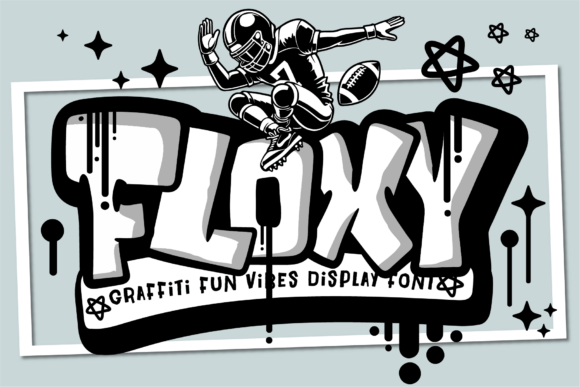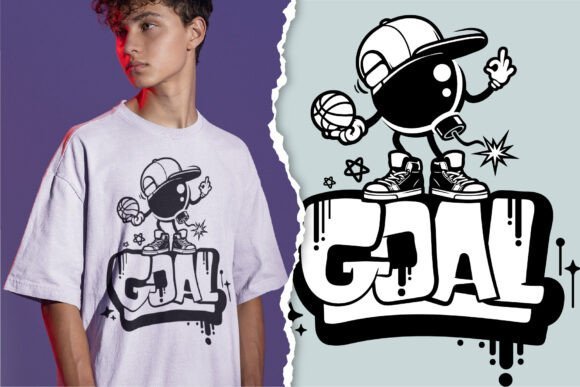
Creating jaw-dropping visuals requires more than just standard typefaces. I’ve put together a list of 26 display graffiti fonts that bridge the gap between fine art and street culture, ensuring your next project leaves a lasting impression.
Top Graffiti Display Fonts to Transform Streetwear and Event Posters
Street art thrives on raw energy, sharp angles, and rebellious expression. Capturing that authentic urban edge within digital layouts requires typefaces that go beyond standard display styles to emulate real spray paint, wildstyle drips, and stencil textures.
This curated roundup showcases 26 aggressive graffiti typefaces featuring heavy letterforms, stylized swashes, and urban character. Whether the focus lies in streetwear branding, music festival flyers, or bold album covers, these letterforms inject immediate street credibility and visual impact directly into any graphic composition.
1. Street Writing: Unleash Your Creative Edge With Bold Urban Lettering
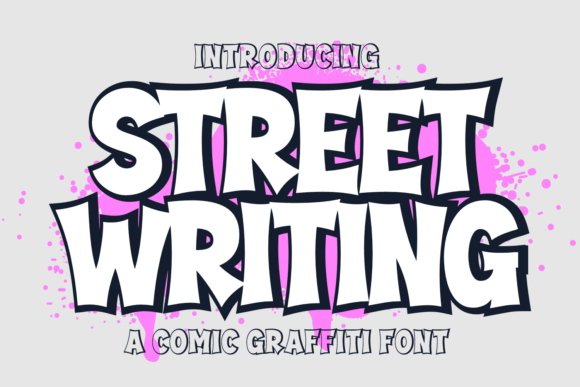
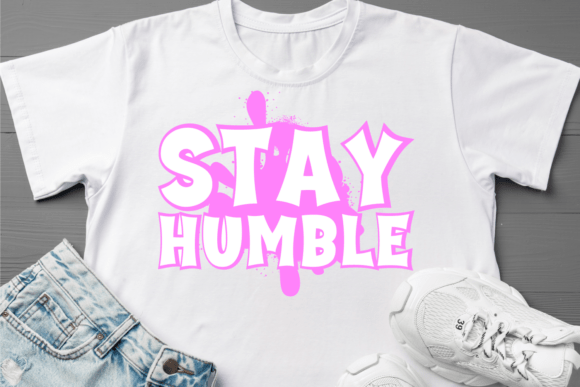
I discovered Street Writing and immediately noticed how it captures that high-energy, urban vibe without feeling too gritty. It strikes a perfect balance between sharp edges and bubbly forms, making it a standout display graffiti font for anyone wanting to inject a bit of street culture into their work. Since it comes with both regular and extrude versions, playing with depth and 3D effects becomes incredibly simple, allowing the letters to jump off the page or screen.
I find this typeface works best for logotype design, comic book lettering, striking watermarks, posters, and product packaging. The thick outlines and playful proportions give it a readable yet rebellious character that is hard to ignore. It is a fantastic choice if you want to convey a bold brand story through a complete set of uppercase and lowercase characters that feel cohesive and full of personality.
2. Brick Edgie: The Perfect Typeface For High Impact Gaming Graphics
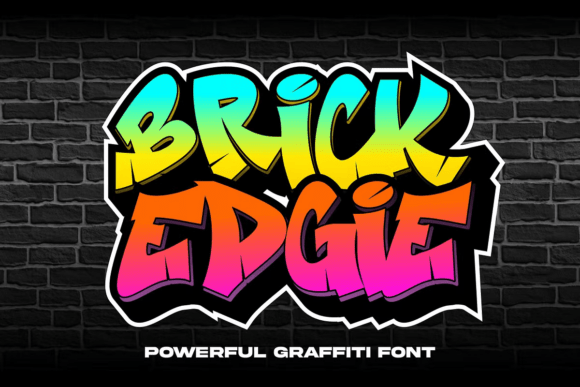
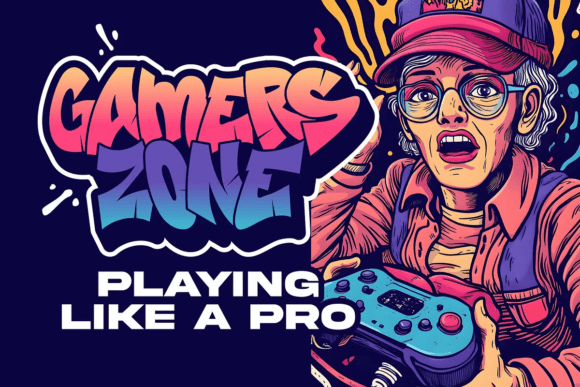
Bringing a raw, urban energy to the screen, Brick Edgie immediately caught my eye with its aggressive, sharp-edged letterforms. I think this specific display graffiti font perfectly captures that underground street aesthetic without losing readability. The jagged outlines and blocky structure give it a heavy, powerful presence that feels both modern and nostalgic for classic wall art.
I see this working exceptionally well for gaming graphics, streetwear branding, music event posters, youtube thumbnails, and bold social media headers. What stands out to me is how well it handles bright gradients and thick strokes, making it a breeze to create high-impact titles. It’s a solid choice for anyone needing a typeface that speaks loudly and brings an authentic, edgy vibe to their digital or print compositions.
3. Single Charm: Bold And Friendly Characters For Standout Logo Design
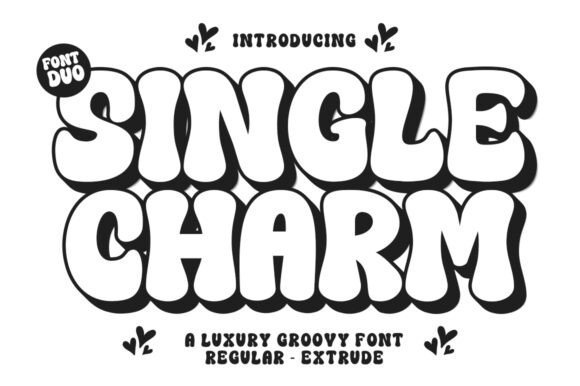
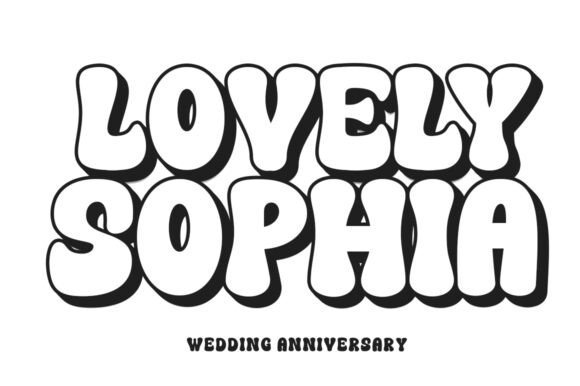
I immediately felt a sense of nostalgia when I first saw Single Charm, as its soft, rounded edges remind me of classic bubble tags found in old-school street art. It is a fantastic example of a display graffiti font that leans into a more “luxury groovy” aesthetic, blending playful cartoon vibes with a clean, modern finish. I find the inclusion of an extrude version particularly helpful, as it allows you to create that iconic layered look without any manual effort.
I would recommend using this typeface for emblematic logos, comic book scripts, unforgettable watermarks, attention-grabbing posters, and bespoke product packaging. The bouncy rhythm of the letters makes every word feel alive and friendly, which is great for brands that want to appear approachable yet stylish. It is a complete kit that provides everything from uppercase to punctuation, ensuring your brand story stays consistent across different media formats.
4. Street Drips: The Perfect Typeface For Modern Comic Book Script Design
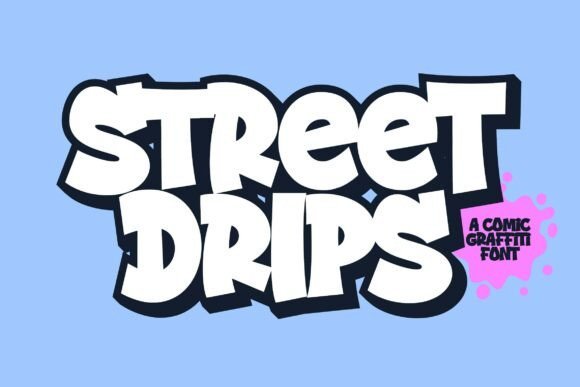
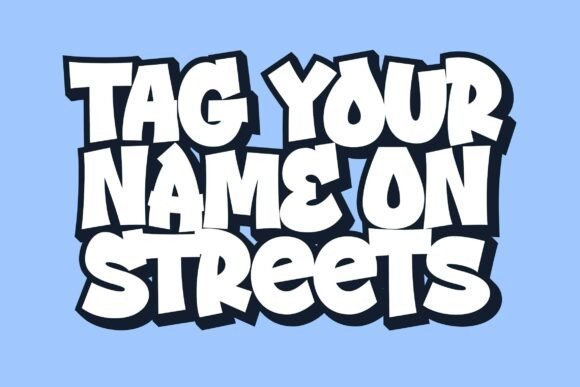
Providing a fresh take on urban aesthetics, Street Drips stands out with its chunky, interlocking letterforms that feel like they were pulled straight from a vibrant city mural. I noticed how the slightly irregular heights of each character create a natural, hand-drawn rhythm that is hard to replicate with standard typefaces. Using this display graffiti font makes it incredibly easy to give any digital canvas an authentic street-inspired atmosphere while keeping the text perfectly legible for all types of viewers.
I suggest applying this bold look to professional project branding, logotypes, comic book covers, striking posters, and distinctive product packaging. Because it includes an extrude version, I can quickly add depth and dimension to titles without needing complex design software. The full set of uppercase and lowercase letters ensures that your messaging remains fluid and expressive, giving you the tools to craft a brand story that truly resonates with a younger, trend-focused audience.
Final Thoughts
The right display graffiti font can be the defining element of your design. Take these 26 tools and use them to rule the urban landscape, ensuring your work is as bold and fearless as the culture that inspired it.